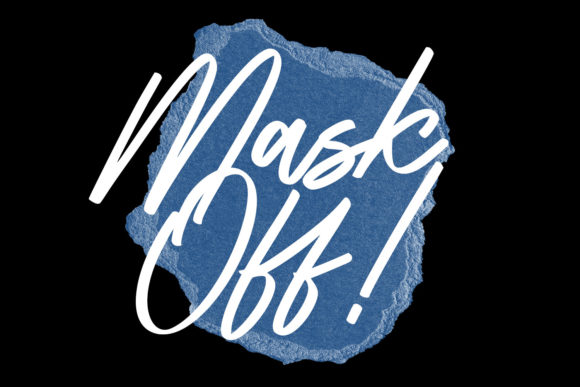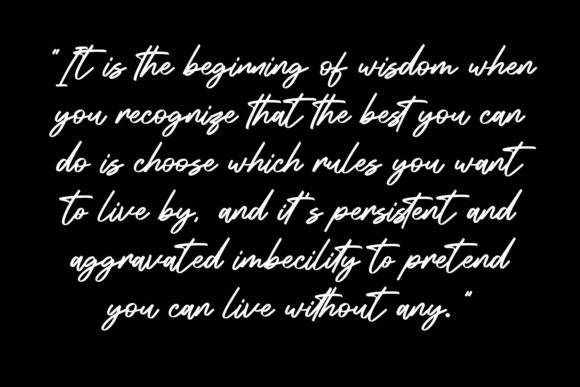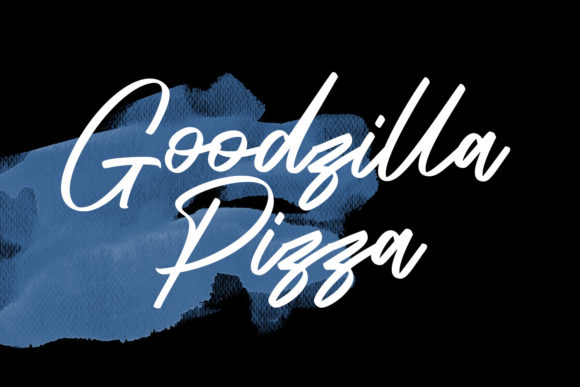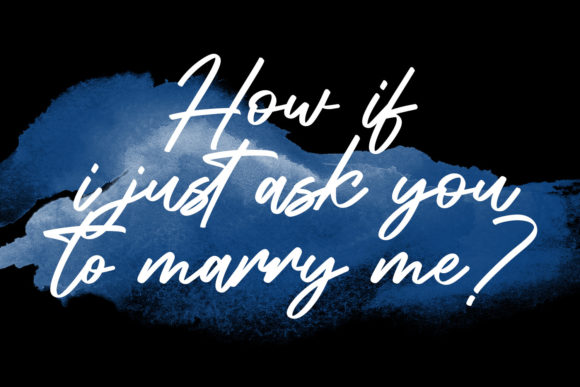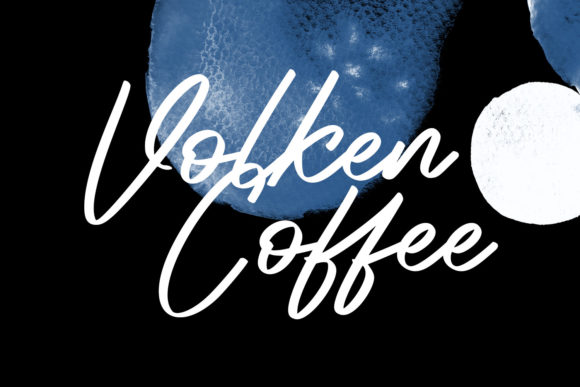
About Rithmycs Script Font
Rithmycs is a stylish and artistic script font that exudes a sense of elegance and creativity. With its unique design, it brings a touch of sophistication and playfulness to a wide range of design projects.
The font’s paint brushed strokes give it a distinct and handcrafted appearance, making it perfect for adding a personalized and artistic touch to your designs. Whether you’re using it for branding, logo design, posters, or any other creative project, Rithmycs’s distinctive strokes will catch the eye and leave a lasting impression.
The medium contrast strokes of Rithmycs contribute to its balanced and harmonious look. This contrast enhances the readability and legibility of the font, making it suitable for various applications. Whether it’s used for large headings or smaller text, Rithmycs maintains its elegance and charm.
The inclusion of ligatures and alternates adds to the font’s versatility. These decorative elements allow you to create unique and visually appealing compositions by combining different characters and glyphs. This feature is particularly useful for adding flourish and style to your designs, giving them a custom-made feel.
Rithmycs’s fancy and playful characters make it well-suited for a variety of contexts. It can be used for branding projects to create a distinct and memorable visual identity. Its artistic appearance can also add a touch of creativity to product packaging, making it stand out on the shelves.
For invitations and event materials, Rithmycs’s unique design can add a sense of celebration and excitement. Its handcrafted look adds a personal and heartfelt touch to wedding invitations, greeting cards, and more.
In summary, Rithmycs is a fancy and paint brushed script font that offers a combination of elegance and creativity. Its medium contrast strokes, fun characters, ligatures, and alternates make it a versatile choice for a wide range of design projects. Whether you’re aiming for a sophisticated and artistic look or a playful and unique vibe, Rithmycs has the potential to elevate your designs and make them truly extraordinary.